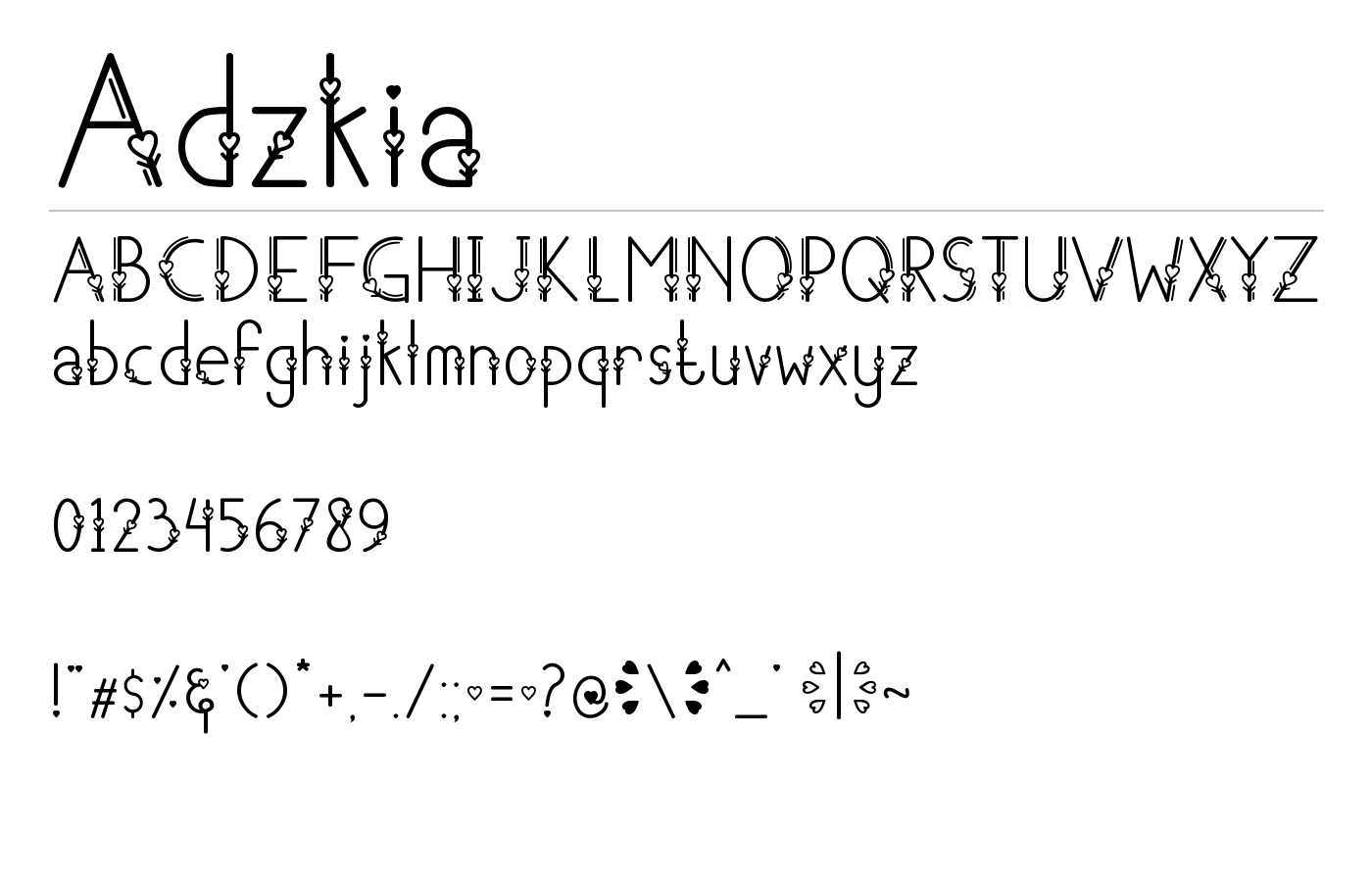
Adzkia is a delicate, thin sans serif font characterized by its whimsical heart-shaped accents incorporated into strokes, lending it a playful and charming personality. With its light weight and unique decorative elements, it works beautifully for romantic, feminine, or creative designs, making it ideal for invitations, greeting cards, and branding that seeks a soft, affectionate touch. This font adds a distinctive and elegant flair while maintaining readability in display uses.
Adzkia Font